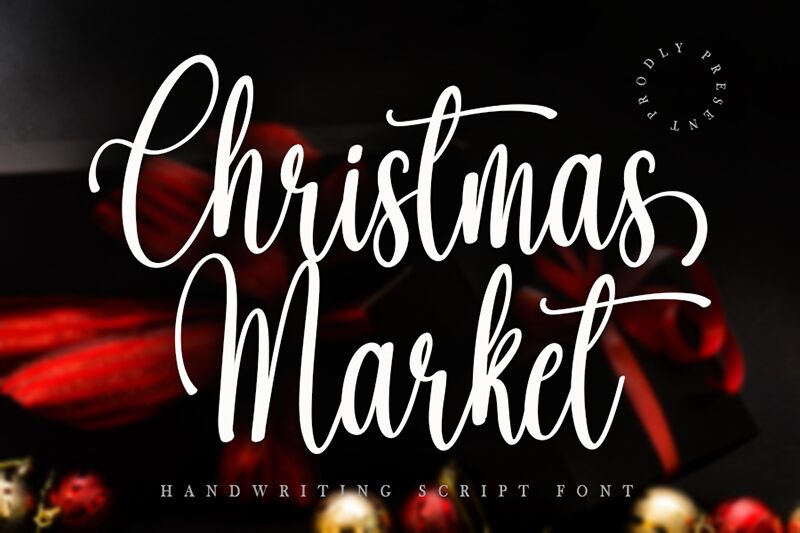
Christmas Market font
Christmas Market
This font features a sophisticated calligraphic style while maintaining a contemporary and fresh appearance. Its versatility makes it suitable for a wide range of creative projects, including letterheads, titles, and stationery.